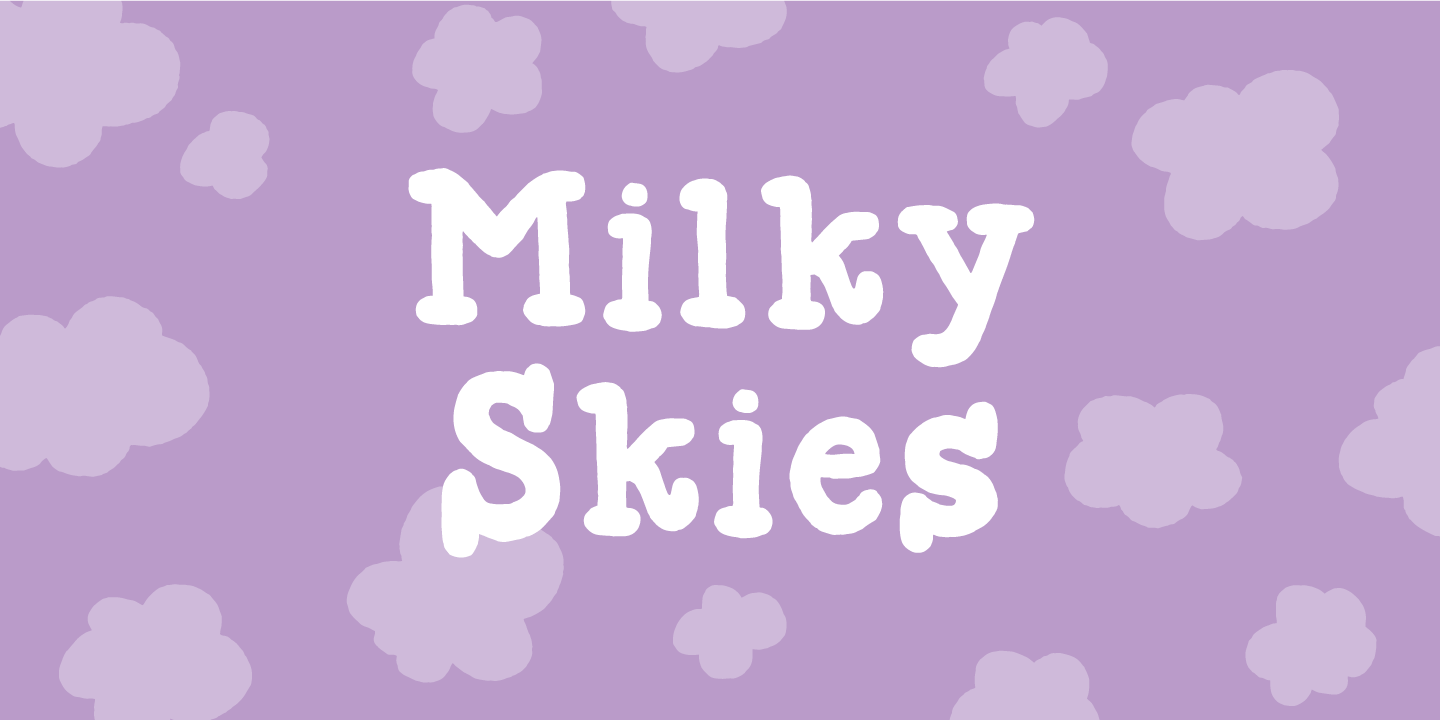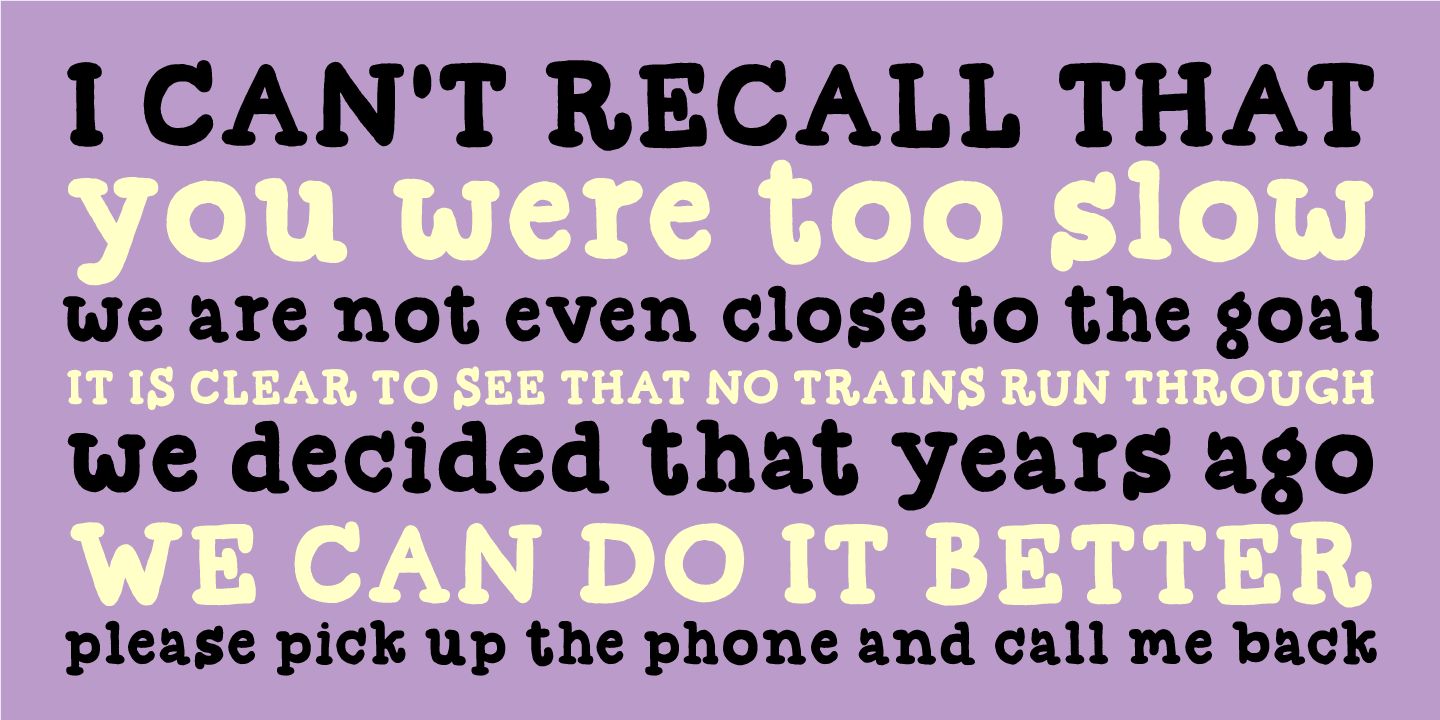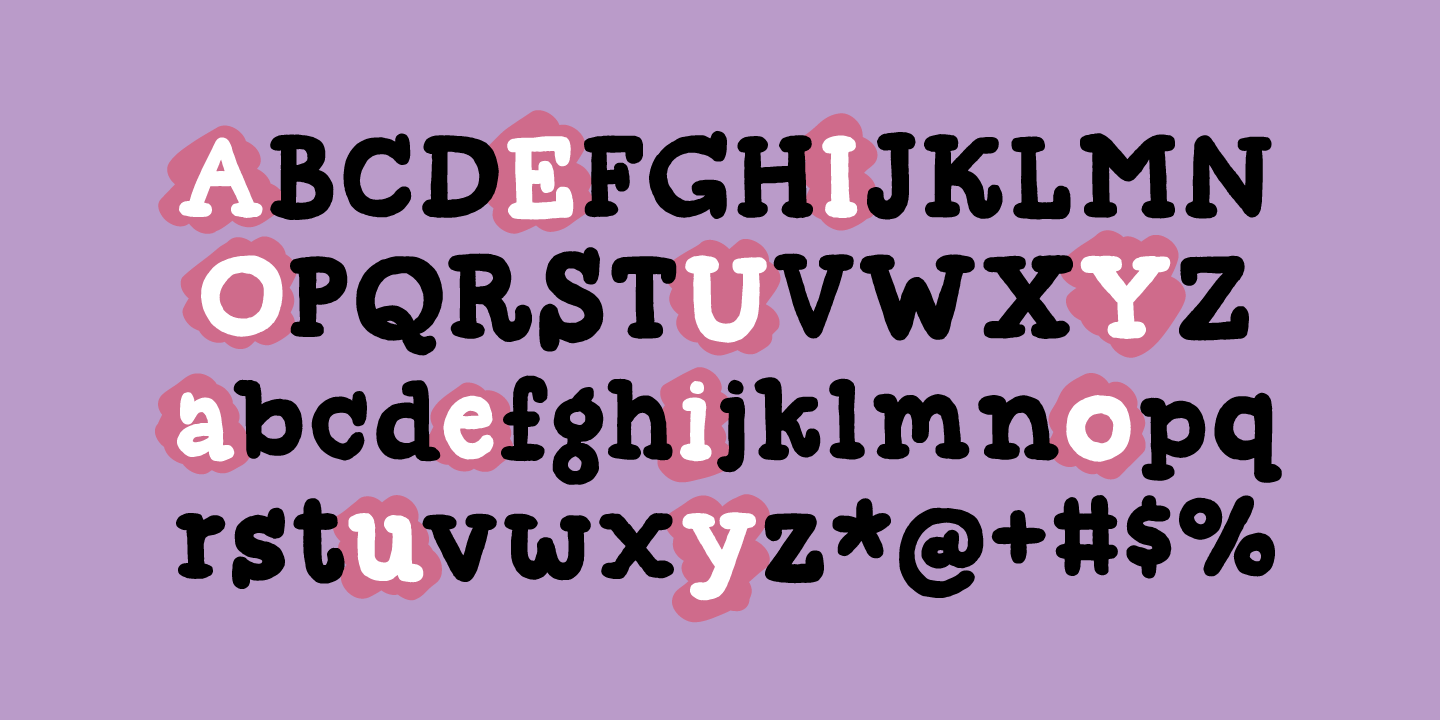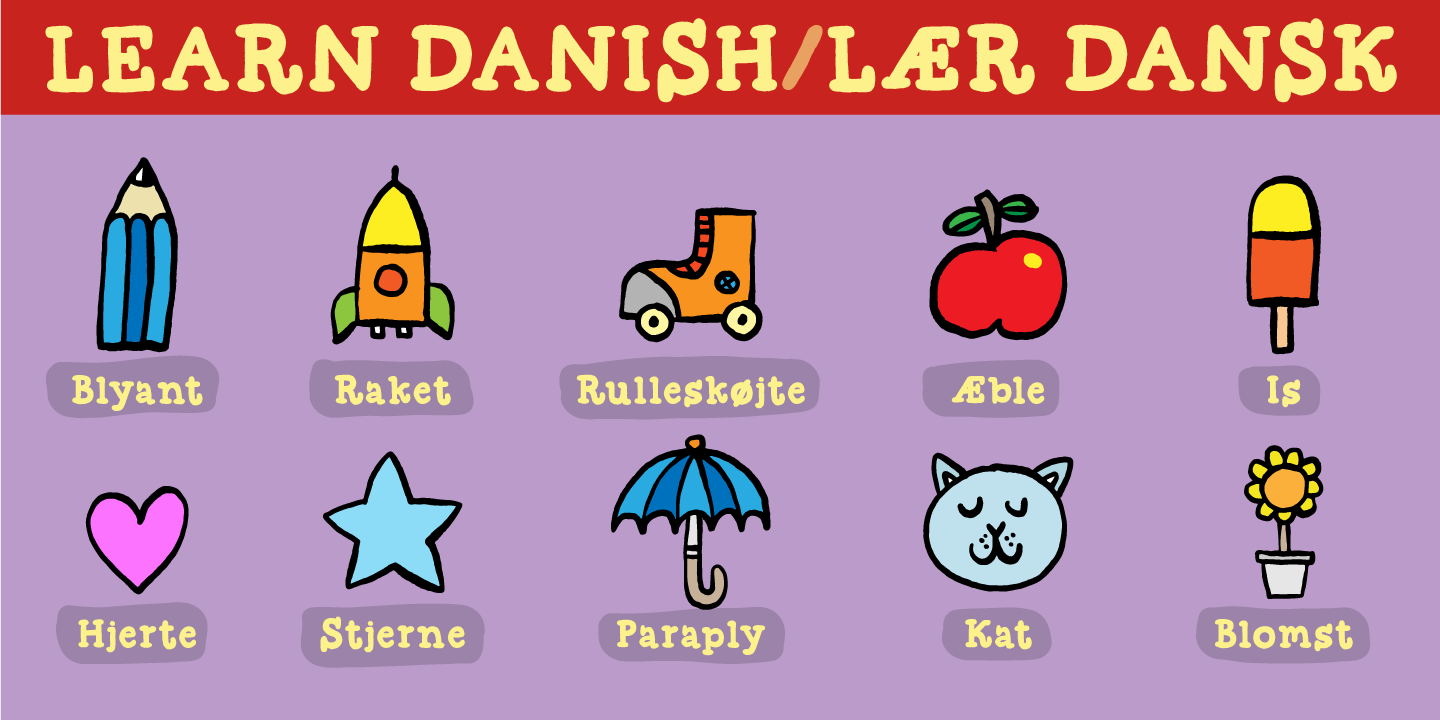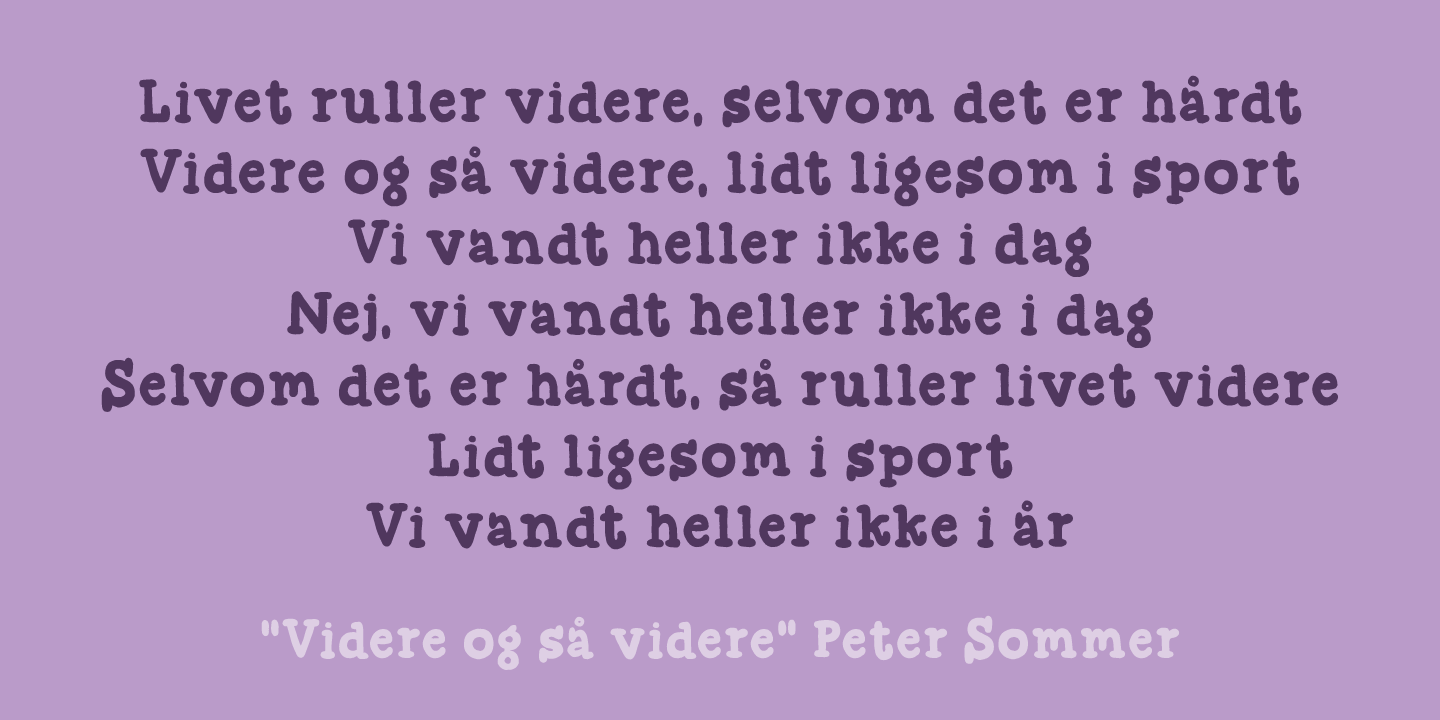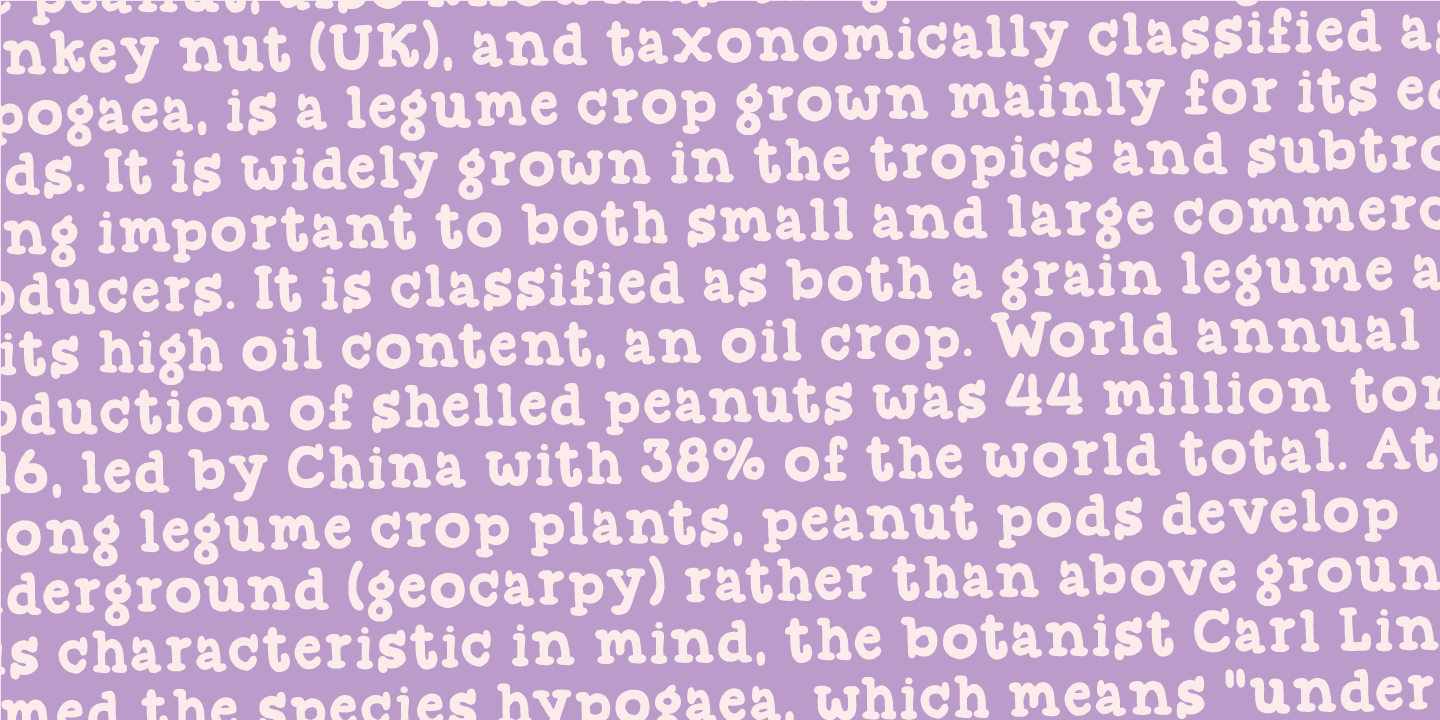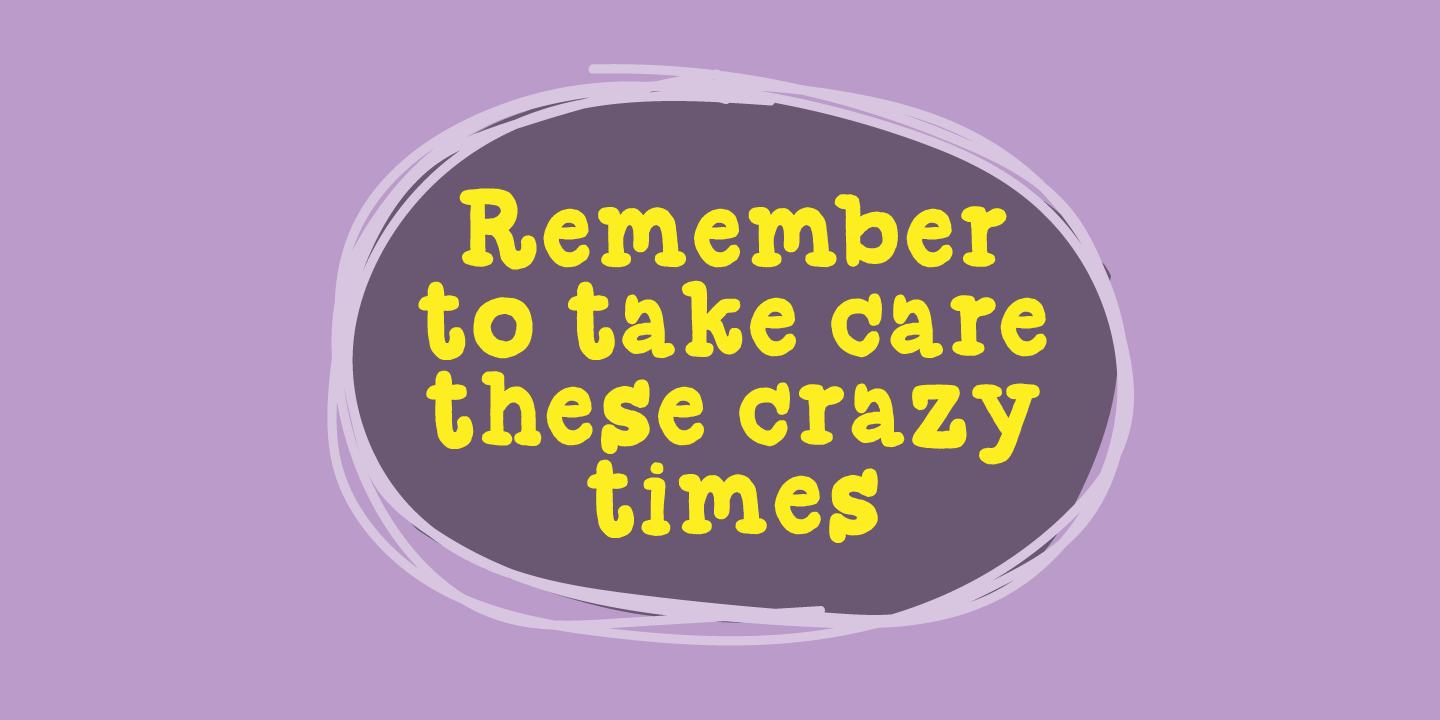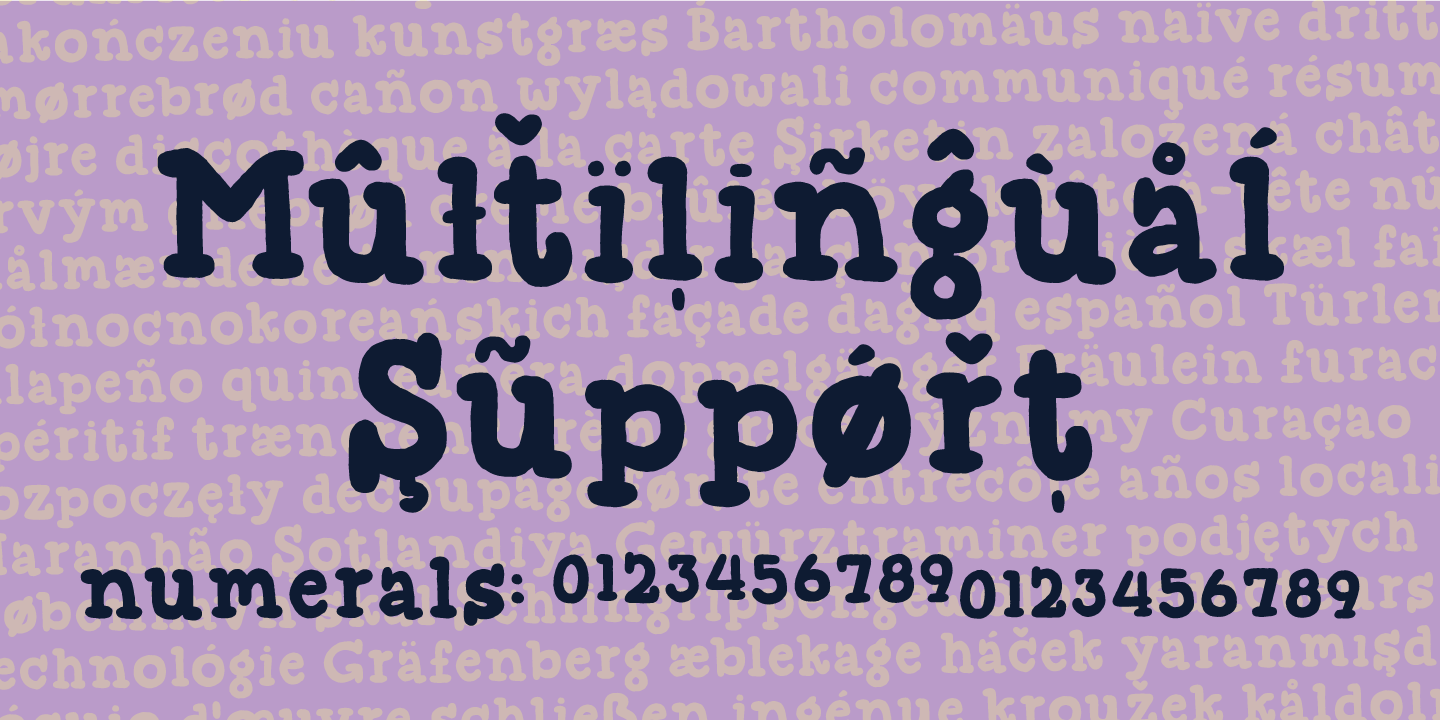
Thursday Afternoon is like a typewriter that was out in the rain all night - all wobbly and worn, but with the well-known details of a typewriter, just a bit...well a lot...out of the ordinary!
Although being awkward, Thursday Afternoon is surprisingly legible. I'd like that the font should be used for labels, toys for kids, candy or any kind of organic product. It even looks really well with headlines or shoutouts in all-caps!